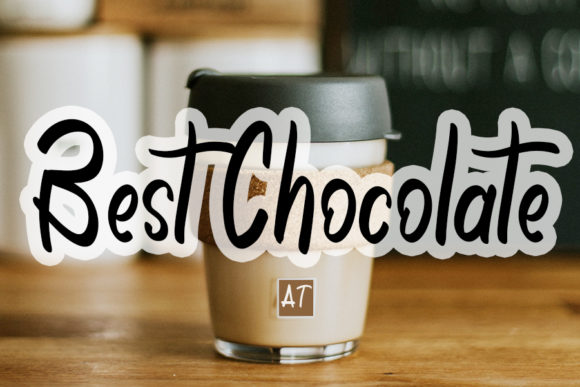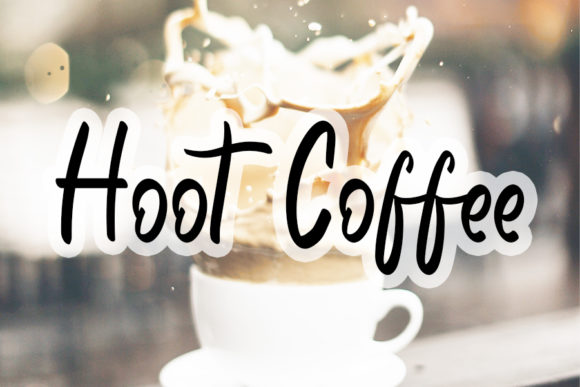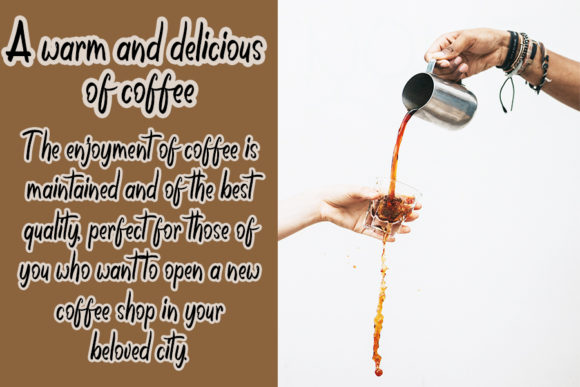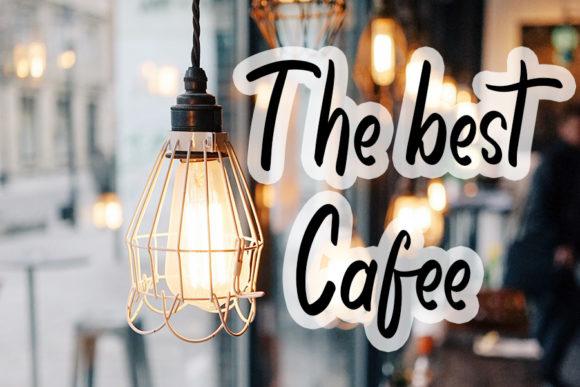
Coffee Shoop Font
About Coffee Shoop Font
“Coffee Shoop” emerges as a beautifully flowing handwritten font, defined by an elegant touch that positions it as the perfect companion for your cherished projects. This font embodies an air of sophistication that remains both distinctive and timeless, inviting you to immerse yourself in its allure and employ it to craft designs that truly captivate.
What sets “Coffee Shoop” apart is its seamless fusion of fluidity and elegance. Each meticulously designed letter carries an aura of refined beauty, reminiscent of calligraphy penned with meticulous care. With every stroke, “Coffee Shoop” weaves a narrative of elegance and timelessness that transcends the ordinary.
Envision the transformative power of “Coffee Shoop” across a variety of designs—a cozy café menu adorned with the font’s elegant script, enhancing the atmosphere and inviting customers to indulge. Picture the font gracing a collection of gourmet products, encapsulating the essence of both luxury and approachability in every character. The font’s versatility extends gracefully across diverse contexts, infusing projects with an element of enduring artistry.
The natural charisma of “Coffee Shoop” is irresistible, akin to the comforting aroma of freshly brewed coffee. Its letters glide gracefully, imparting a sense of warmth that elevates the overall design. The font radiates an aura of timeless charm, inviting creators to embark on a journey of creative exploration.
Designers and enthusiasts alike are bound to be captivated by the timeless elegance of “Coffee Shoop.” Its adaptability transcends norms, making it an indispensable tool for various projects. Beyond being a mere font, “Coffee Shoop” evolves into a medium of expression, allowing creators to infuse their work with a touch of timeless sophistication.
In essence, “Coffee Shoop” stands as a testament to the artistry that typography can encompass. Its flowing handwritten charm beckons you to explore the world of design, transforming your ideas into tangible creations that embody both elegance and comfort. As you navigate the realms of creativity, let “Coffee Shoop” be your guiding light, leading you to craft designs that reflect the essence of sophistication and create a lasting impact on every canvas, all while celebrating the true magic of your creative imagination.